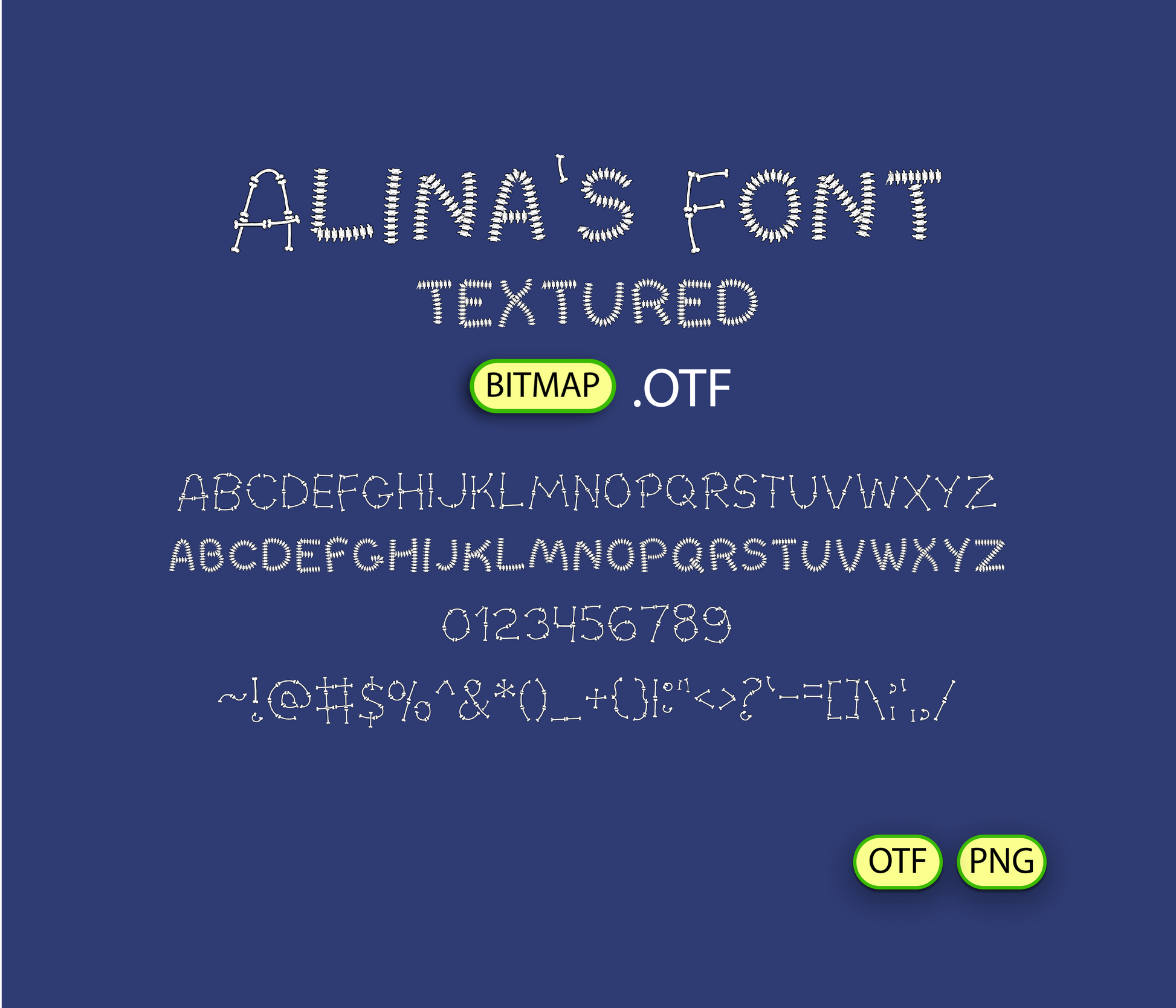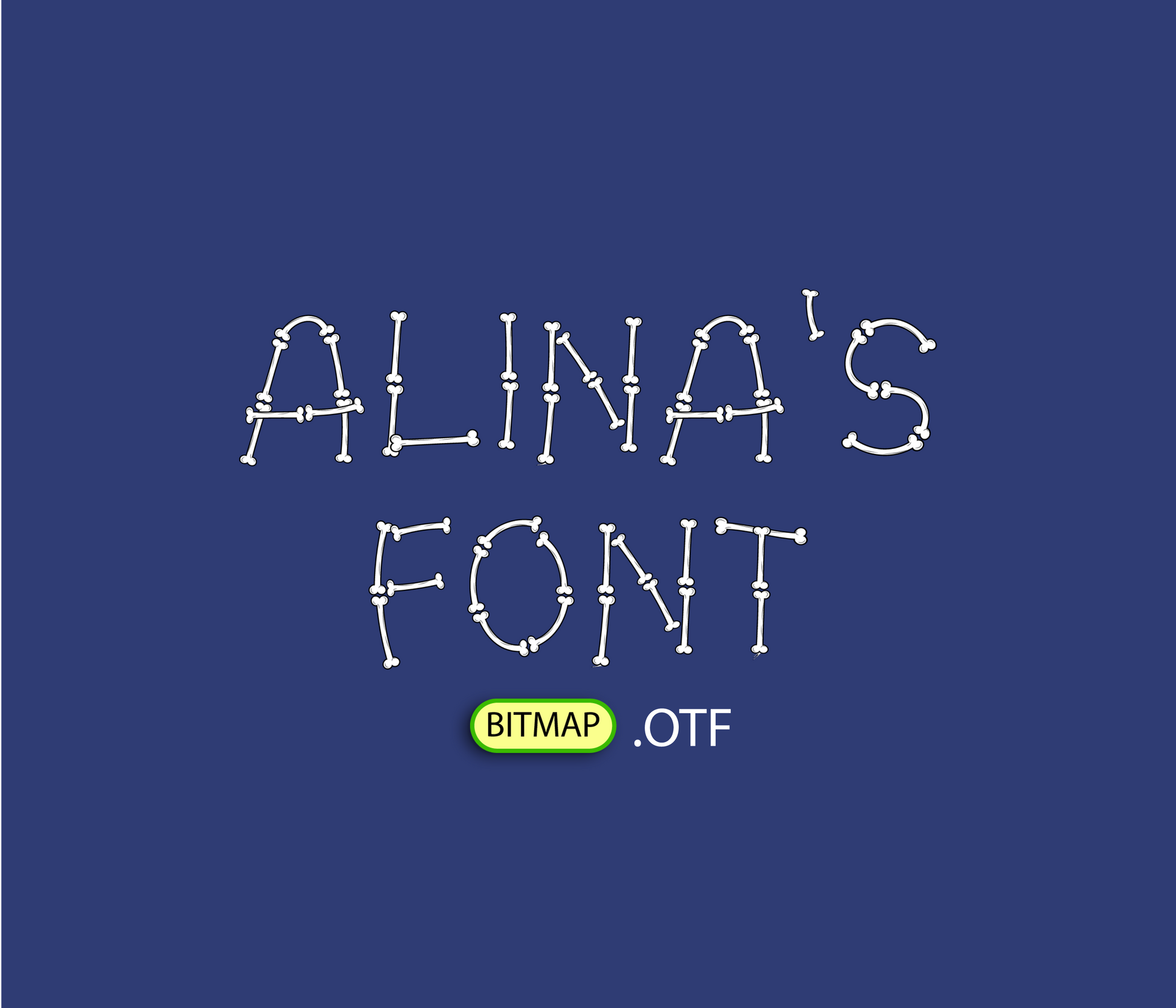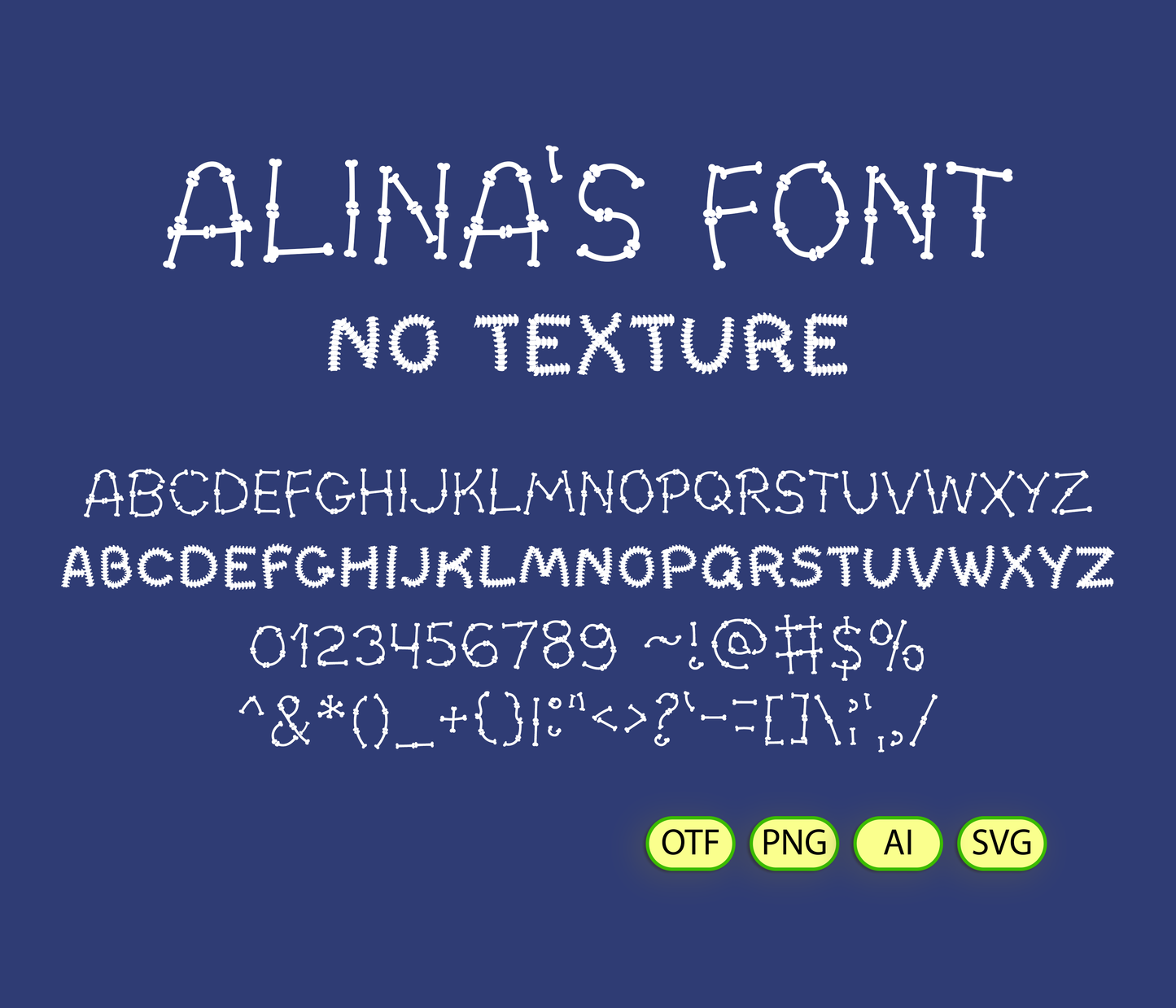
Halloween Bones Pattern Font
The Spooky Allure of Halloween Bones: Pattern Color Font
Embrace the eerie charm of Halloween with our Halloween Bones Pattern Bundle Color Fonts, a unique collection that blends the spooky essence of Halloween with playful creativity. This bundle is perfect for adding a touch of whimsy to the holiday's traditional motifs, featuring fonts designed with bone patterns in various colors and styles. Each font captures the spirit of Halloween, from the skeletal dance of the dead to the mysterious, bone-chilling nights of folklore.
What font is the Halloween Bones Pattern Bundle?
Imagine a series of typefaces where each character is crafted from intricately patterned bones, colored in classic Halloween hues like ghostly white, pumpkin orange, and midnight black. These fonts are designed to bring a unique, skeletal twist to your Halloween-themed projects, combining the playfulness of colorful patterns with the traditional macabre symbolism of bones. The bundle includes an extensive character set for each font, covering alphabets, numbers, and special symbols, offering a versatile toolkit for a wide range of spooky designs.
What Can You Do With Halloween Color Fonts?
The Halloween Bones Pattern Bundle is perfect for various spine-tingling and fun applications:
- Halloween Party Invitations: Craft unique, bone-themed invitations for your Halloween parties.
- Seasonal Decorations: Design eerie banners, posters, and signage for Halloween décor.
- Themed Apparel: Create spooky yet playful clothing and accessories for Halloween events.
- Graphic Designs and Digital Art: Enhance your digital content with these uniquely patterned fonts.
- Educational Materials: Use in classroom resources for Halloween-themed lessons and activities.
- Event Signage: Create eye-catching signs for haunted houses, escape rooms, and Halloween festivals.
- Marketing and Advertising: Add a creative twist to promotional materials for Halloween sales and events.
- Stationery and Greeting Cards: Design personalized stationery and cards with a spooky, skeletal flair.
- Packaging Design: Use the fonts for product packaging with a Halloween theme.
- DIY Projects and Crafts: Perfect for scrapbooking, crafting, and other artistic endeavors with a Halloween motif.
The Halloween Bones Pattern Bundle Color Fonts is not just a collection of typefaces; it's a celebration of Halloween's spooky charm combined with playful artistry.